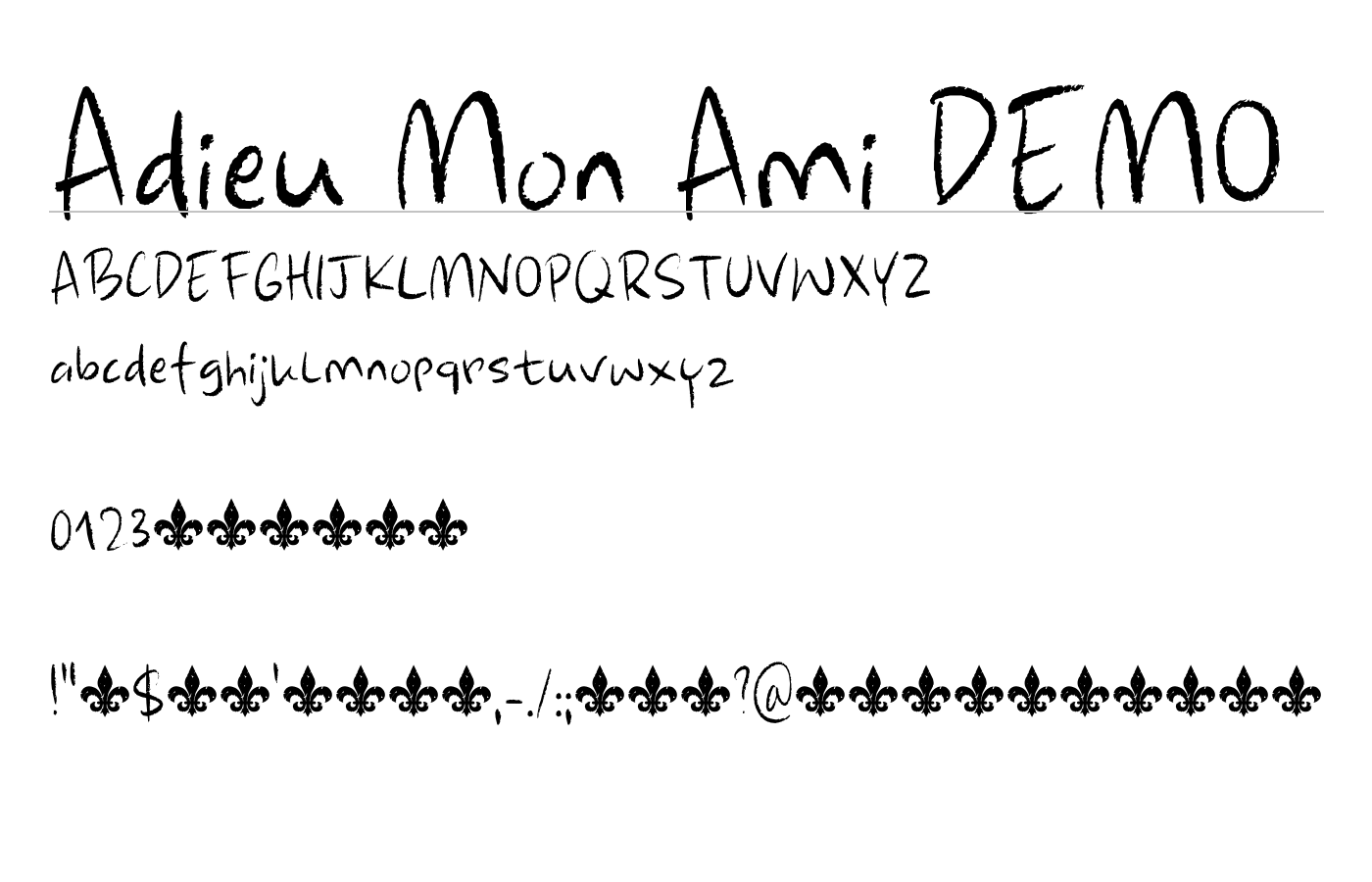
Adieu Mon Ami DEMO is a casual, handwritten-style sans serif font with a playful and slightly rough texture, creating a friendly and approachable feel. Its irregular strokes and tall, narrow letterforms give it a dynamic, informal personality that works well for personal projects, creative logos, and artistic branding where a relaxed, authentic touch is desired. This font shines in contexts that benefit from a hand-drawn look, adding warmth and character without sacrificing legibility.
Adieu Mon Ami DEMO Font
About Adieu Mon Ami DEMO Font